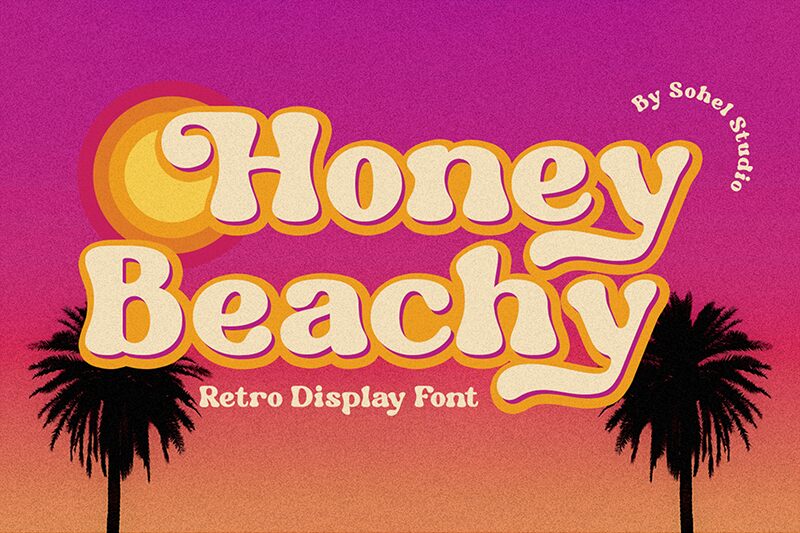
HoneyBeachyDemo
Honey Beachy font designed by Sohel Studio is a free bold display, retro, vintage-inspired font. Consisting of playful and bubbly letters, it carries a casual appearance with friendly vibes suitable for less formal designs. Rounded edges and a curvy pattern make the letters stand out beautifully.
Use the typeface in magazine titles, book covers, greetings cards or posters. Popular product usage includes albums, postcards, theatrical displays as well as children’s content including games and packaging. Honey Beachy is free to use for playbooks and fun online websites!
Honey Beachy Features:
3 Weight ( Regular, Slant, Outline)
Uppercase And Lowercase
Alternates And Ligature
Numerals & Punctuation
Accented characters
Multilingual Support